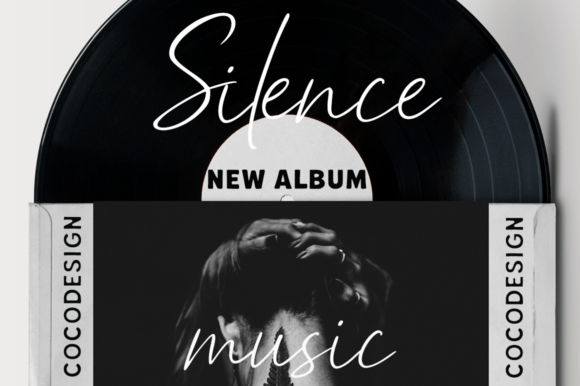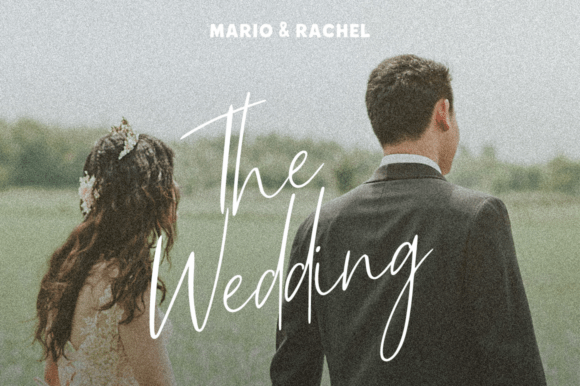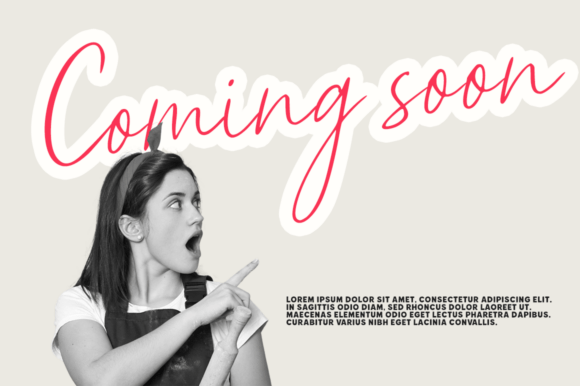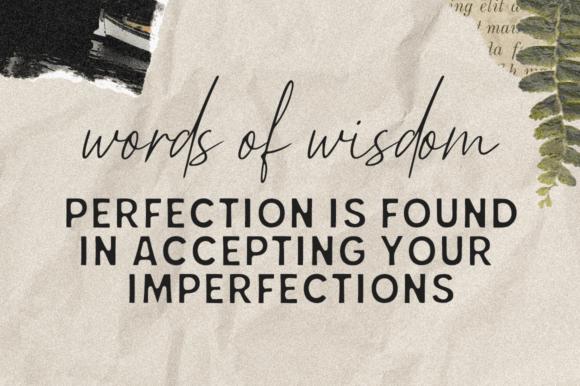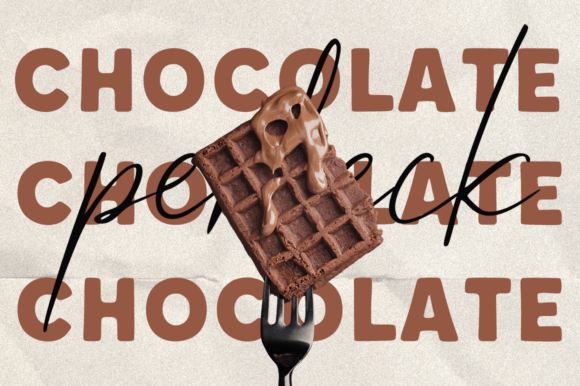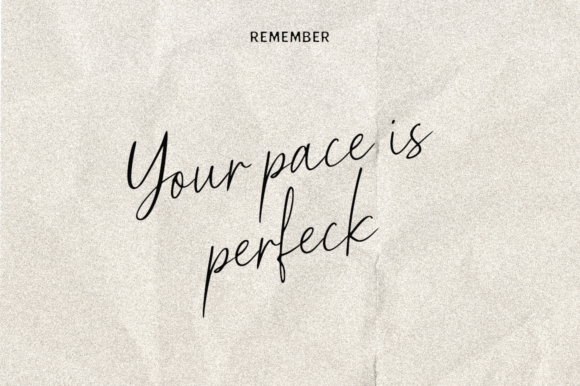
Introduction to Nostalgia Memory Font
Nostalgia Memory is a perfectly balanced font duo that blends timeless elegance with modern boldness.
The set combines a graceful handwritten script with a bold retro sans, creating a harmonious contrast that captures both sophistication and strength Ideal for logos, packaging, invitations, posters, editorial design, and social media visuals, this duo adds character and style to any creative project.